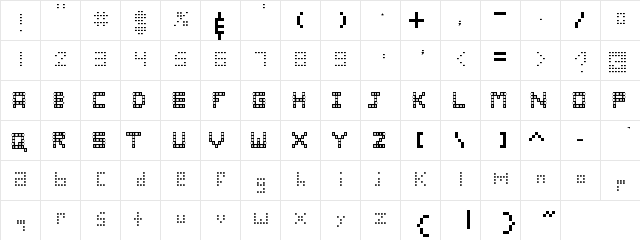
wreck it ralph Regular
Design Context for wreck it ralph Typeface
wreck it ralph takes a measured approach to typography — its balanced proportions and neutral character make it a reliable workhorse for both digital and print work.